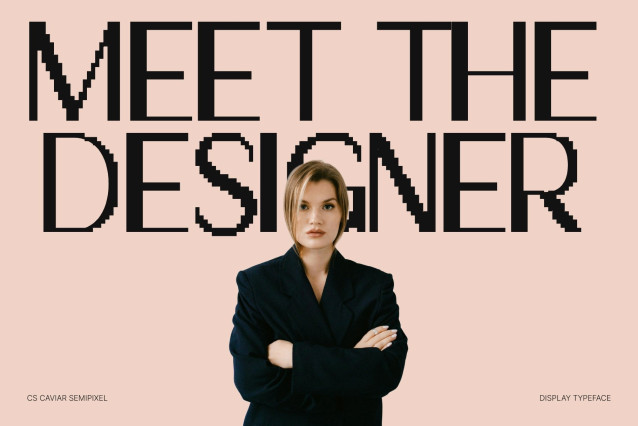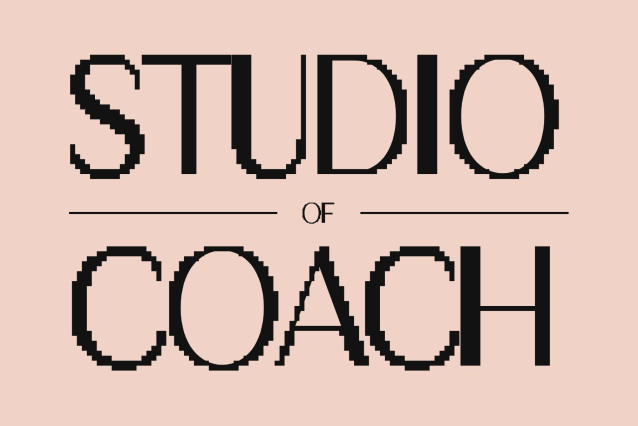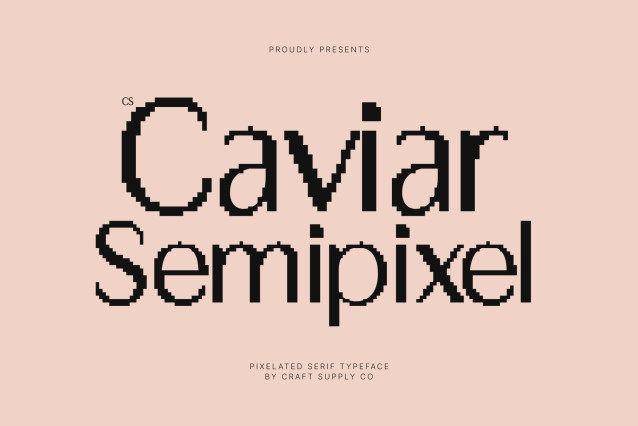
CS Caviar Semipixel – Modern Sans Serif Display Font: Where Digital Precision Meets Elegant Futurism
Semi-Pixel Geometry with Smooth Contemporary Curves
This is a modern sans serif display font that combines semi-pixel square shapes with smooth curves and refined contemporary details. Inspired by digital pixel aesthetics yet softened with elegant shaping, the font avoids the rigid look of traditional pixel typography, resulting in a sleek, modern, and visually sophisticated appearance.
Futuristic Style with Elegant Simplicity
This font delivers a clean and futuristic visual identity. Its balanced forms create a stylish rhythm that feels both technological and approachable, making the font ideal for projects that require a high-tech atmosphere while maintaining readability and elegance.
Smooth Readability with Strong Display Presence
This font offers strong display characteristics while remaining smooth and easy to read. The fusion of pixel-inspired forms and flowing curves creates a unique typographic personality perfect for modern digital culture and contemporary branding.